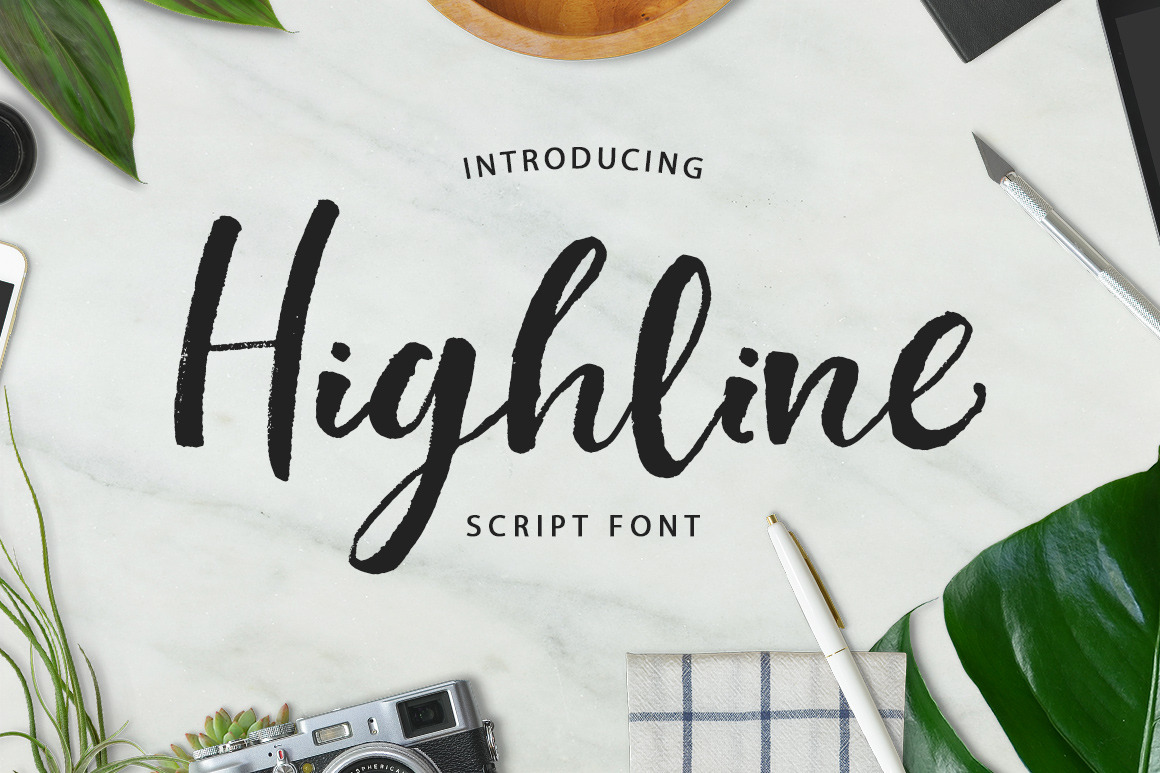
Please welcome Highline to the family
Highline is a gorgeous bold hand drawn script font with caps that work together or with the lowercase letters.
There are a full set of alternates and an italic version as well, so lots of options there.
Highline supports international characters.